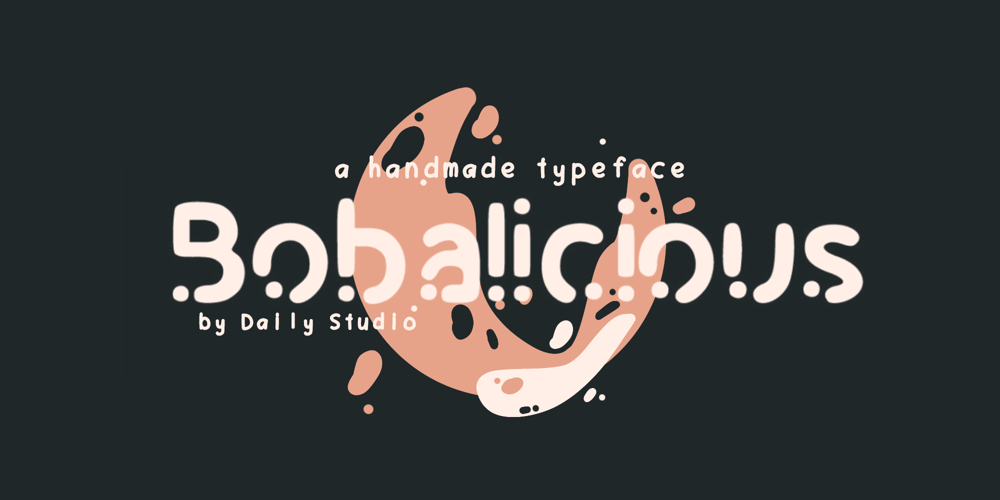
Bobalicious Font Family was designed by Zaizafun Hanifah and published by Daily Studio. Bobalicious contains 1 styles and family package options. Bobalicious is a gorgeous display typeface that is sure to stand out. Make your design look exceptional with easy accessibility. Designed by Daily Studio. Bobalicious will pair beautifully with various fonts and function well with the project you are working on. Perfect for gorgeous logos and headers. This typeface includes full lowercase, uppercase, numbers, punctuation, and standard latin letters. With 235 glyphs and file in OTF format.